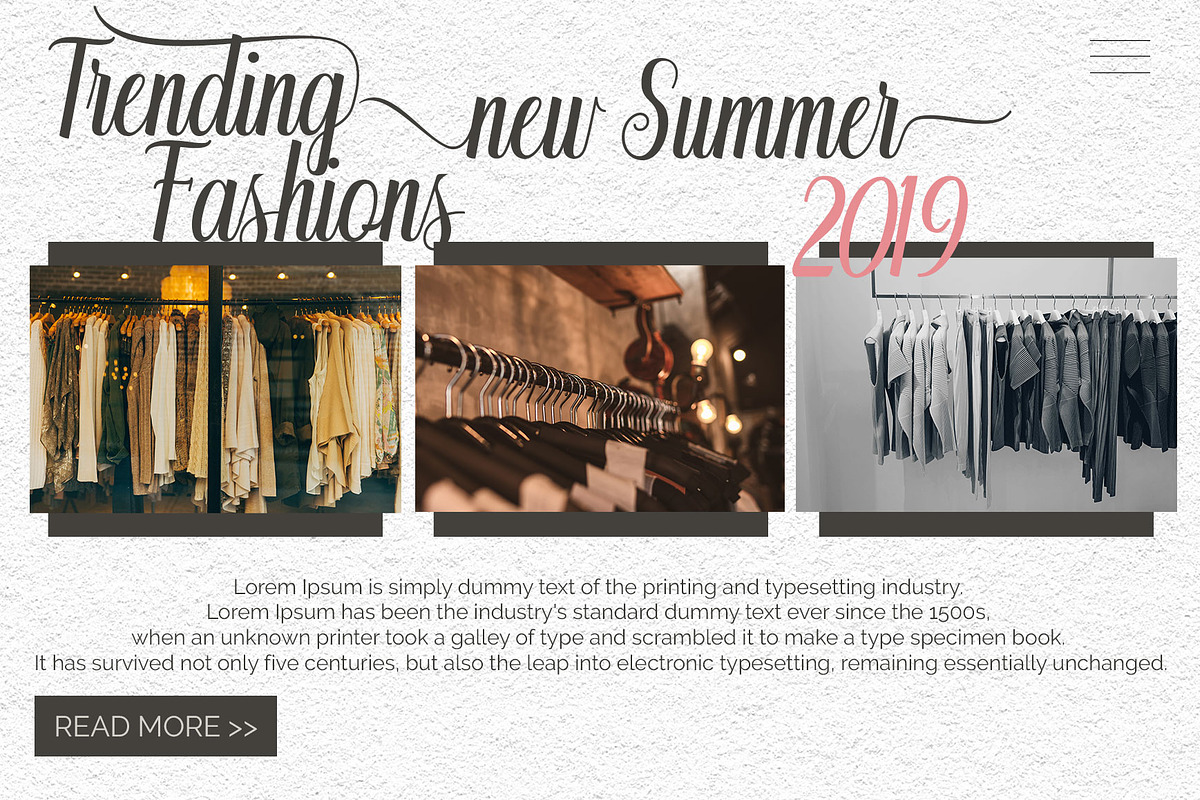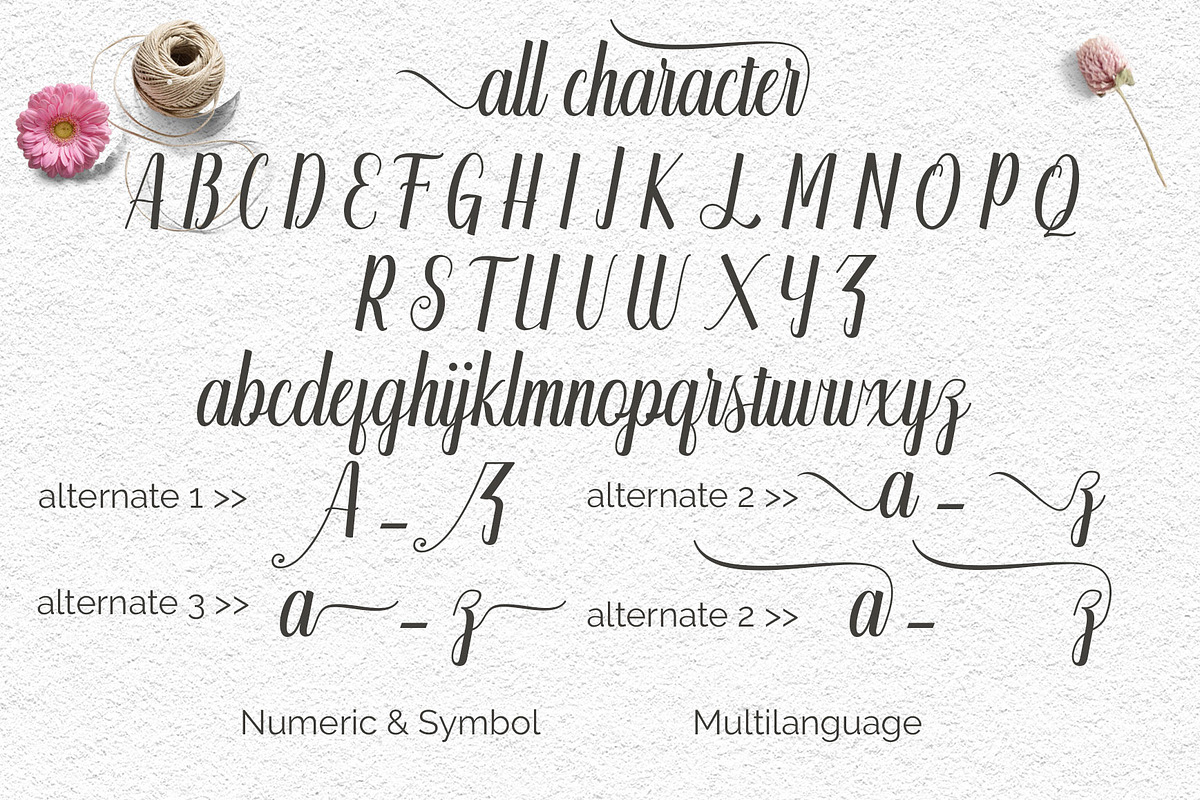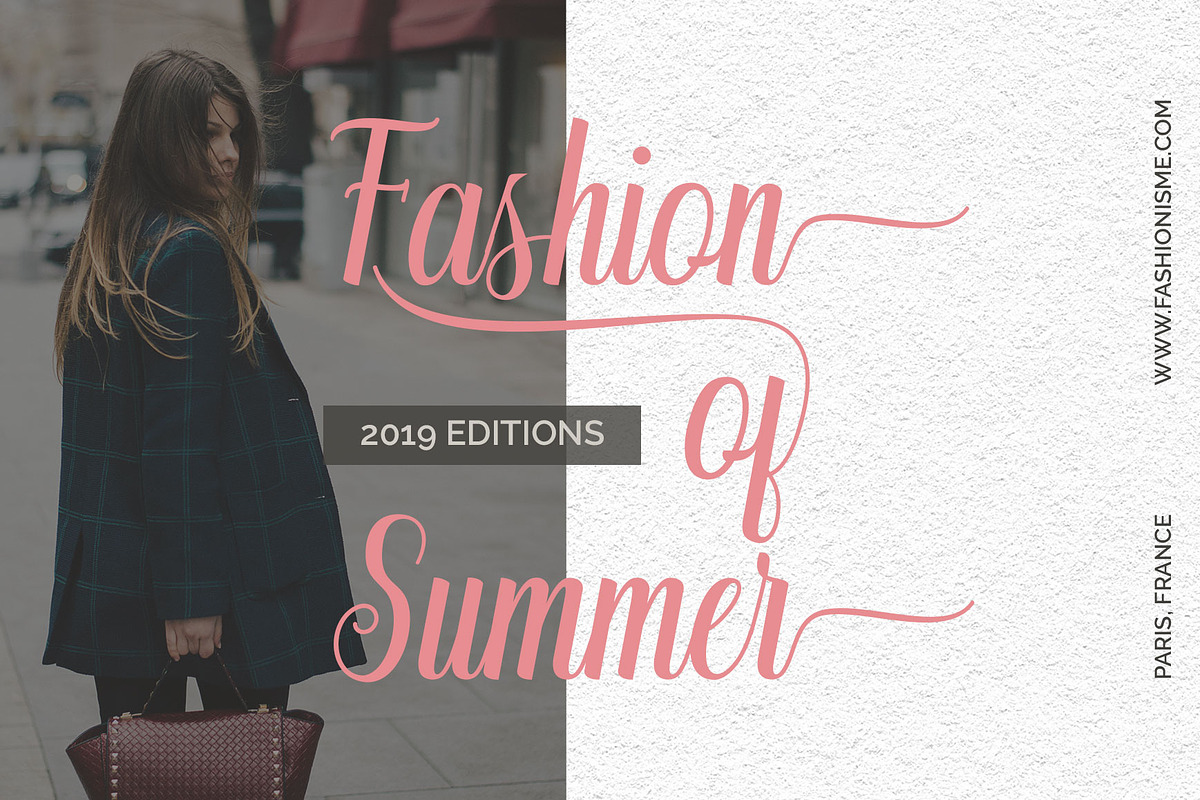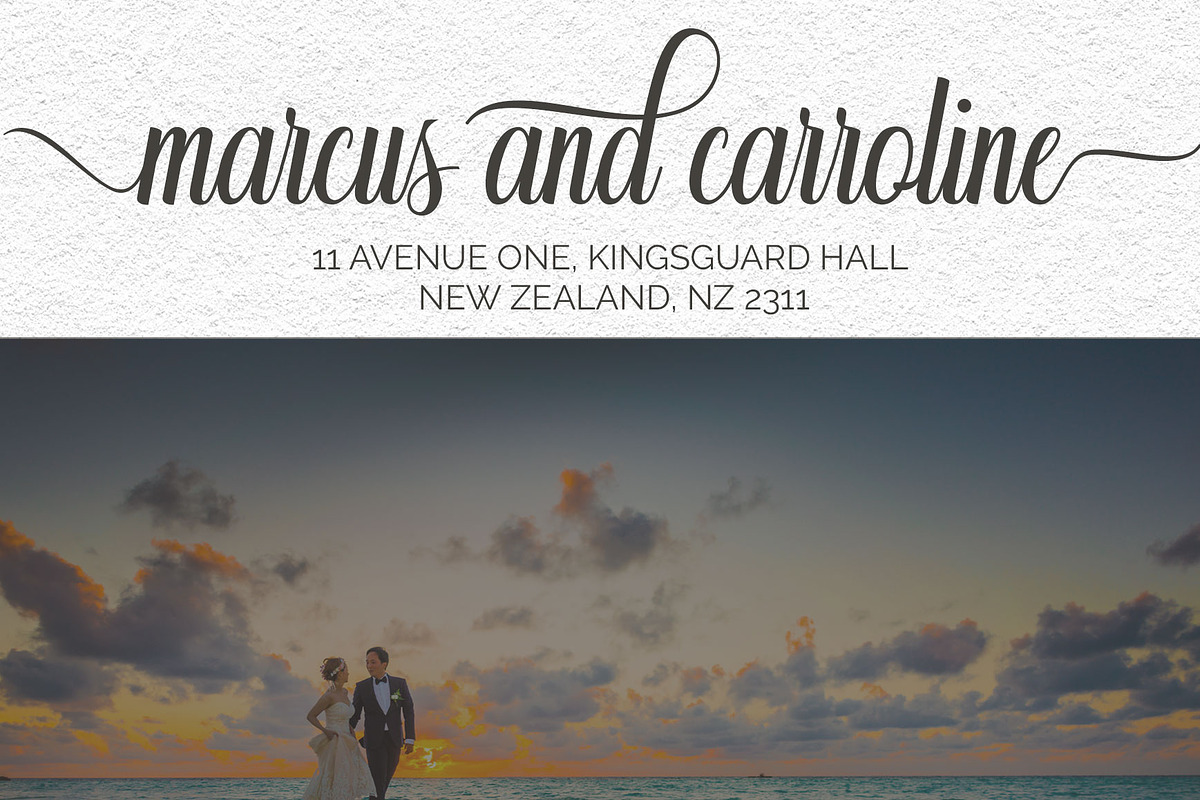
mahony script
Introducing mahony script
mahony script is a new modern calligraphy Typeface Fonts with combines from copperplate to contemporary typeface, classic, beauty and elegant touch.
mahony script is suitable for Apparel Brand, any greeting cards, Painting design style, or any design that needs natural and personal touch. Mix and match the alternate characters to add an attractive message to your design.
mahony script features with opentype features. Stylistic Alternates, Standart Ligature and more.You can access all those alternate characters by using OpenType savvy programs such as Adobe Illustrator, Adobe InDesign and CorelDraw X6-X7.
Swash Alternates Standart ligatures Stylistic Alternates Stylistic sets PUA Support